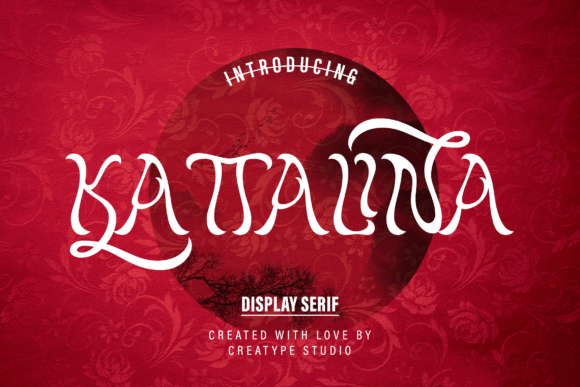
**Kattalina: A Serif Font That Commands Attention**
Prepare to be captivated by the spellbinding allure of Kattalina, a serif font that radiates boldness and sophistication. Its every letter is a masterpiece, crafted with sharp serifs and contrasting lines that dance upon the page, demanding attention and leaving an unforgettable mark.
Step into the spotlight with Kattalina, the perfect choice for branding that exudes confidence and makes a lasting impression. Its strong and memorable presence elevates your designs to new heights, whether you're crafting logos, website headlines, or any creation that demands a touch of audacity.
Unleash your creativity with Kattalina's PUA encoding, which grants you effortless access to an enchanting array of glyphs and swashes. With this extraordinary font at your fingertips, the possibilities for captivating designs are limitless.
Kattalina is more than just a font; it's a statement of style and an expression of your unique vision. Its bold strokes ignite a spark of inspiration, empowering you to create designs that captivate and enchant.
Embrace the allure of Kattalina today and embark on a design journey where boldness and sophistication intertwine. Let its magnetic presence amplify your message and leave an enduring legacy of creativity.